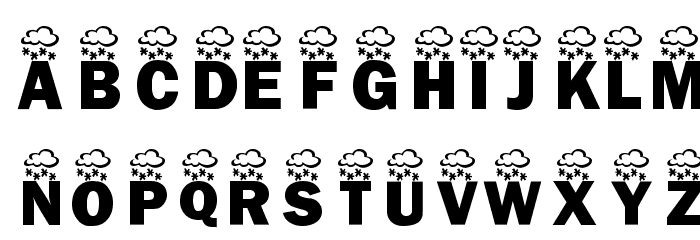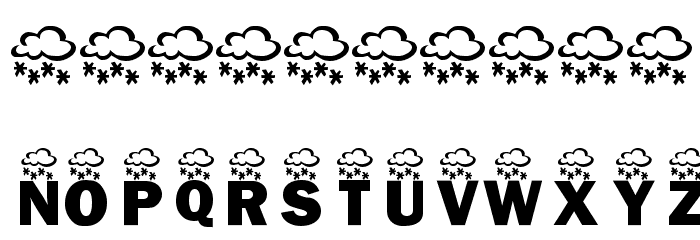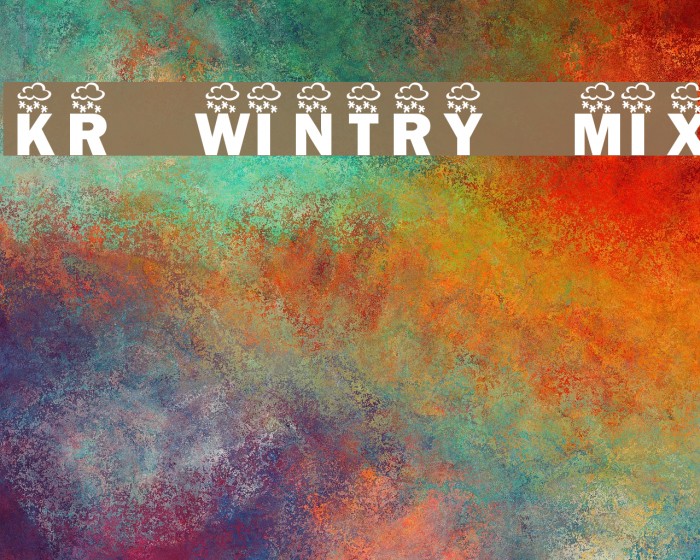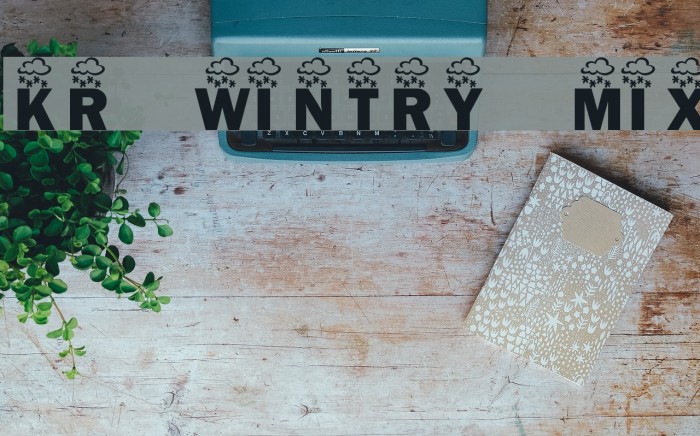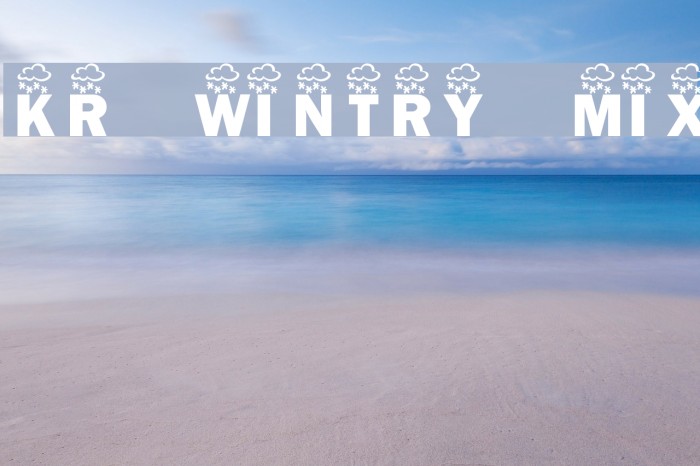
KR Wintry Mix Font
This playful and decorative font features bold, uppercase letters adorned with whimsical cloud and snowflake motifs above each character. The design evokes a wintry, festive atmosphere, making it ideal for seasonal projects. The characters are evenly spaced, ensuring readability while maintaining a fun and engaging appearance. The bold weight of the letters provides a strong visual impact, suitable for various creative applications. The cloud and snowflake embellishments add a unique touch, making this font stand out in any design context.
A bold, decorative font with cloud and snowflake motifs for a wintry feel.
- Proposed Projects: Ideal for holiday cards, winter-themed posters, festive invitations, and playful branding.